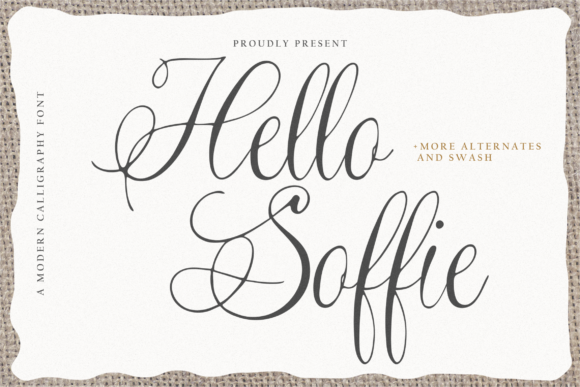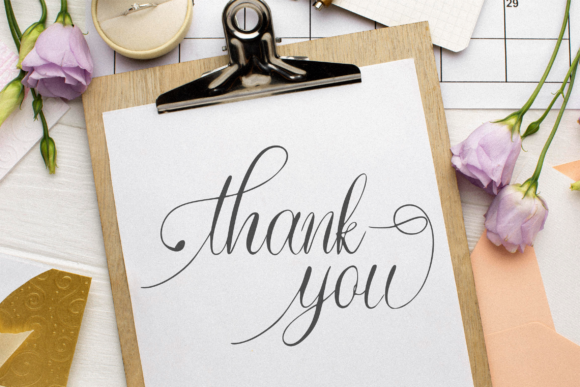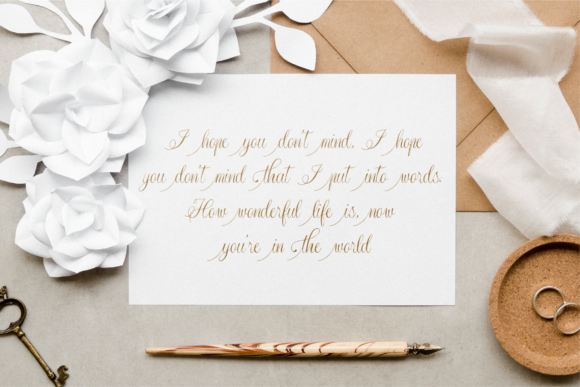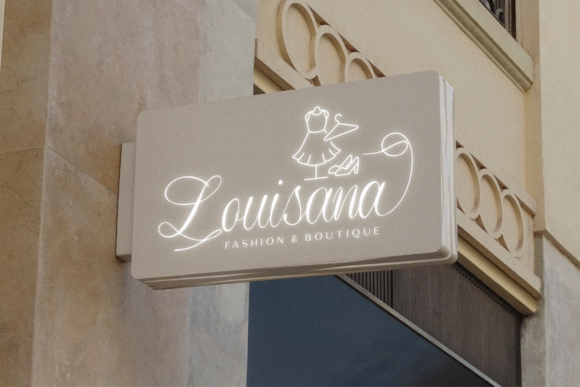
About Hello Soffie Font
Hello Soffie is a distinct graceful script font. Fall for its ravishing style and use it to create gorgeous designs. This font is PUA encoded which means you can access all glyphs and swashes with ease!